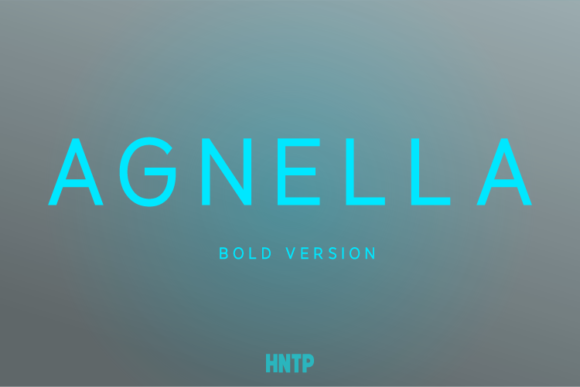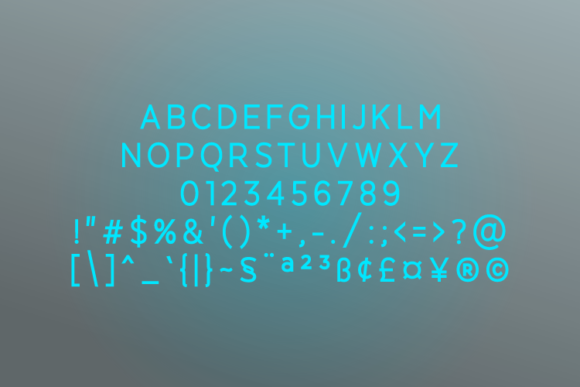
HomeSans Serif FontsAgnella Bold Font Sans Serif Fonts Agnella Bold Font FacebookTwitterPinterestWhatsApp Agnella Bold Font 1 of 2 About Agnella Bold Font Agnella is an effective sans serif with a touch of subtle elegance. Agnella’s vertically and horizontally cut stems make it appear strong and steady. DOWNLOAD NOW People also explored Amterina Font Freeya Font Nightrace Font Zecko Sans Font Astrodings Font Escopedia Font Shanhie Font Adelia Font Toelust Font 176 0 TagsAgnella Bold Font Previous articleAgnella Extra Bold FontNext articleAgnella Semi-Bold Font LEAVE A REPLY Cancel reply Comment: Please enter your comment! Name:* Please enter your name here Email:* You have entered an incorrect email address! Please enter your email address here Website: Save my name, email, and website in this browser for the next time I comment. Personal Use Free Abberancy Personal Use Free Read more about this font Foo Personal Use Free Read more about this font Yesstea Personal Use Free Read more about this font Squariess Personal Use Free Read more about this font BLOG To increase your work productivity, choose the most readable fonts. In today's fast-paced work environment, where digital communication and information consumption are integral to our daily routines, the choice of fonts can significantly impact... Best Fonts for YouTube Videos: Make Your Thumbnails Stand Out Best Fonts for T-Shirt Design – Top 2025 Picks Free vs Paid Fonts: Why Investing in Premium Fonts Is Worth It